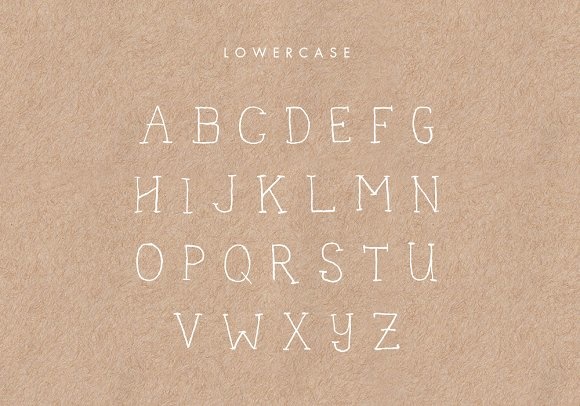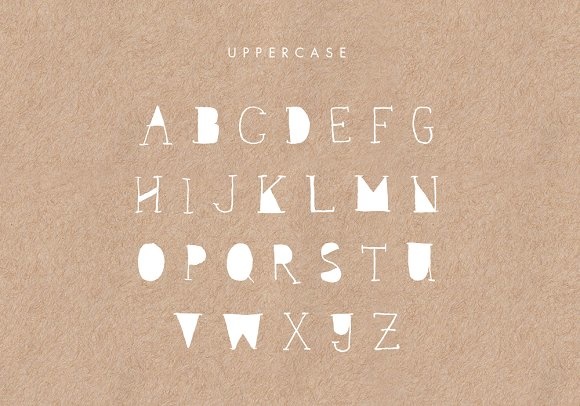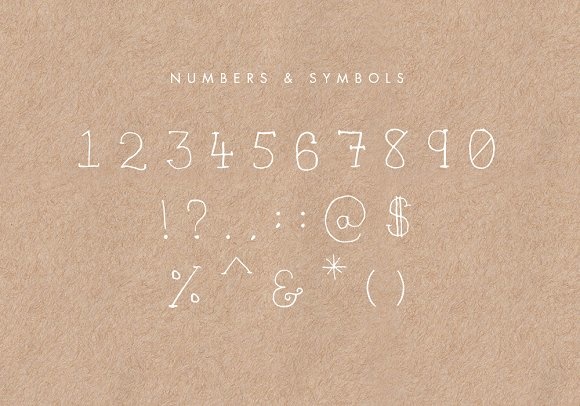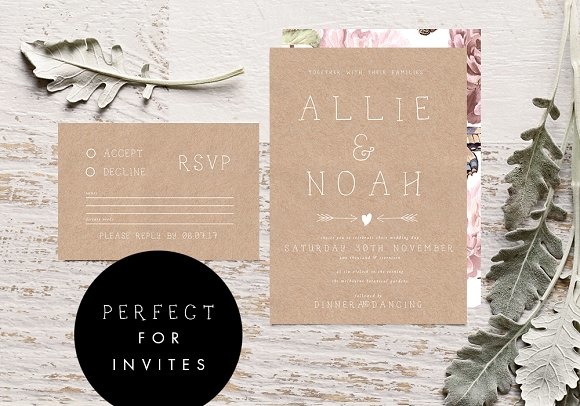
Spiderling Font
About Spiderling Font
Spiderling is a pretty hand written uppercase font, designed to be perfectly imperfect and capture the essence of hand lettering. It also includes a series of extra glyphs, ideal for invitation designs and more.